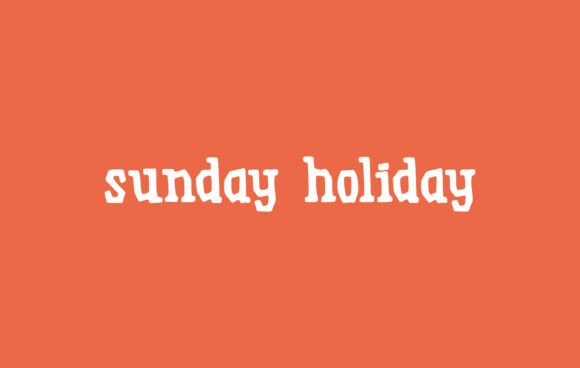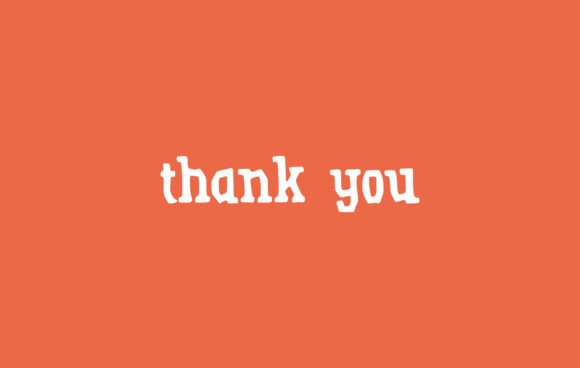
The Magic of Estrella Font: Elevate Your Designs with a Romantic Touch
I’ll never forget the time I was working on a wedding invitation project, and my client asked for a font that was both elegant and playful. I scoured the internet, tried out countless fonts, but nothing seemed quite right. That was until I stumbled upon Estrella font. With its authentic handwritten style and romantic touch, it was love at first sight! In this article, I’ll share my experience with Estrella font, its features, and how to make the most of it in your designs.
A Personal Review of Estrella Font
- ✨ Authentic handwritten style: Estrella font has a genuine, hand-crafted feel that adds a personal touch to any design.
- ✅ Legibility: This font is incredibly easy to read, making it perfect for both title and body text.
- 💕 : Estrella font exudes a sense of warmth and elegance, ideal for designs that require a touch of sophistication.
- 🎨 Versatility: From magazine headlines to social media graphics, wedding invitations, and more, Estrella font can be used in a wide range of design projects.
While Estrella font is an excellent choice for many designs, there are a few things to keep in mind:
- 🤔 Limited availability of certain characters: Some special characters or glyphs might not be available in Estrella font, so be sure to check the font’s capabilities before using it for a project.
- ⚠️ May not be suitable for very small text: While Estrella font is legible, it may not be the best choice for very small text, as some details might get lost.
The Story Behind Estrella Font
Estrella font was designed with the intention of creating a unique, handwritten font that captures the essence of romance and elegance. The designer aimed to craft a font that would be both versatile and beautiful, suitable for a wide range of design projects. With its authentic handwritten style and romantic touch, Estrella font has become a favorite among designers and crafters alike.
Q: What is Estrella font best used for?
A: Estrella font is perfect for designs that require a romantic touch, such as wedding invitations, social media graphics, magazine headlines, and more.
Q: Is Estrella font legible?
A: Yes, Estrella font is incredibly easy to read, making it suitable for both title and body text.